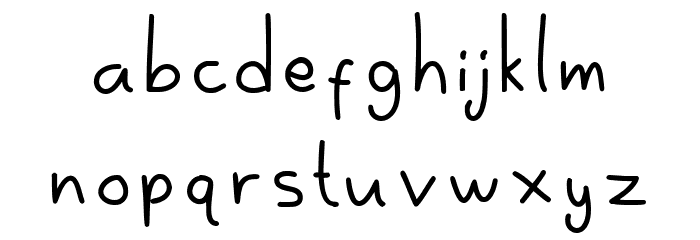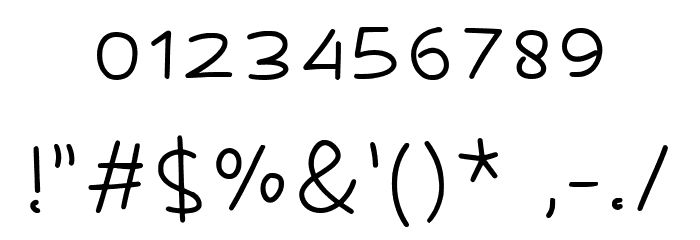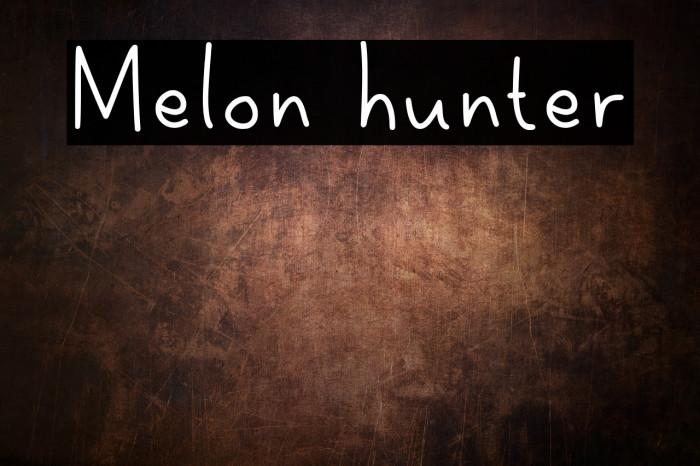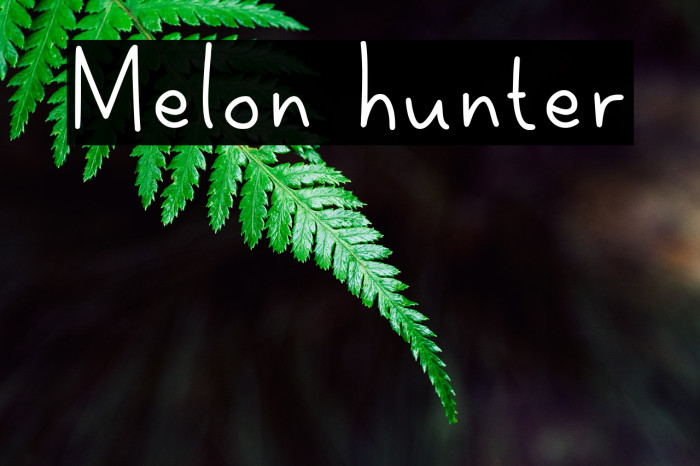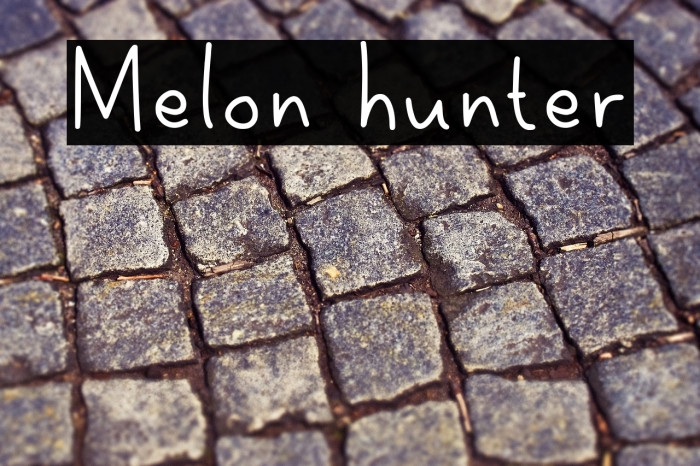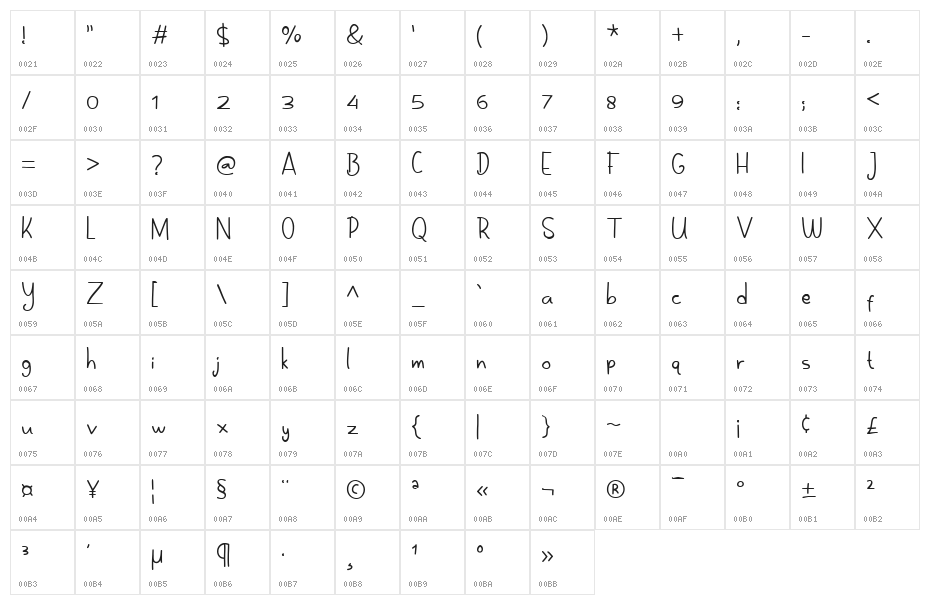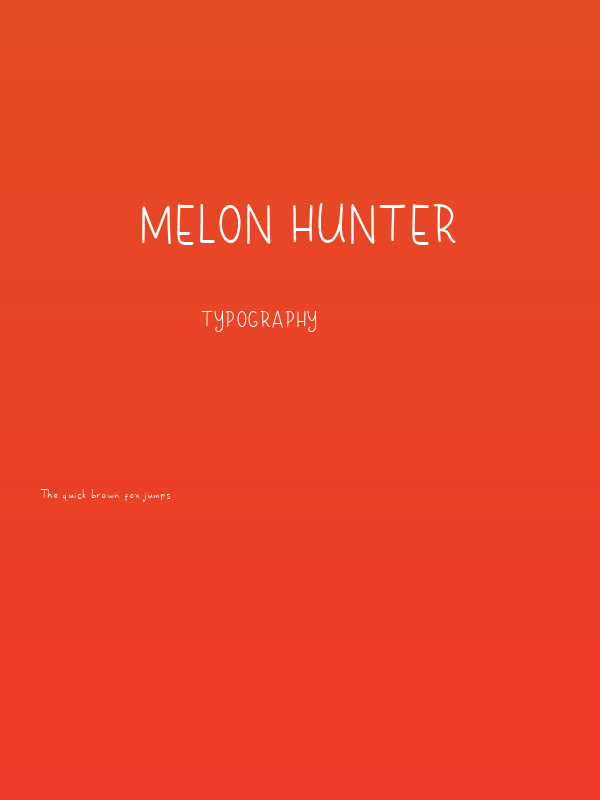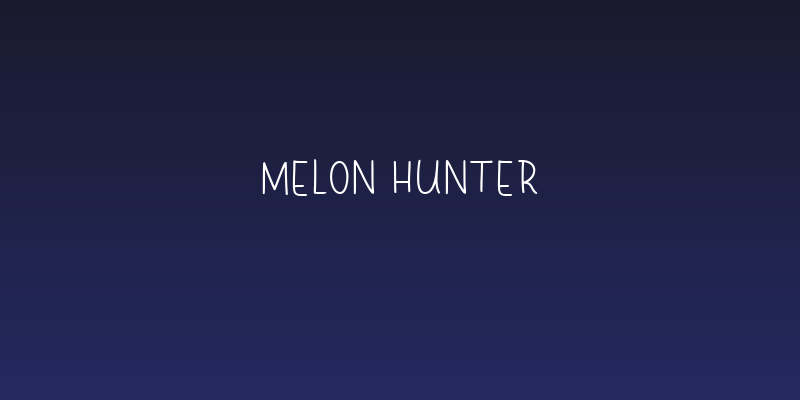
Melon hunter Font
This playful and whimsical font features a handwritten style with a casual and friendly appearance. The characters are slightly irregular, adding a touch of personality and charm. The strokes are consistent in width, giving it a uniform look while maintaining a natural, hand-drawn feel. The uppercase letters are bold and prominent, while the lowercase letters are more relaxed and approachable. The numerals and special characters are designed to match the overall style, making the font versatile for various uses.
- Proposed Projects: Ideal for children's books, greeting cards, playful branding, and informal invitations.
- Overall Style: Playful
- Use Case: Headlines, Logos, Informal Text